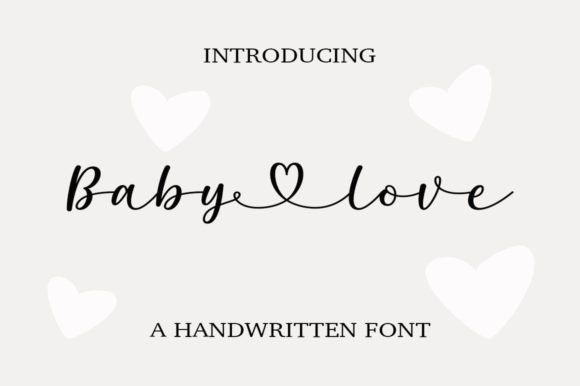
There’s something special about creating something with love and care, isn’t there? Maybe it’s the way the words flow, or the way the colors come together – whatever it is, it’s a feeling we all strive for when we’re designing something special. For me, that feeling usually starts with the right font.
Enter the Baby Love Font, a romantic and sweet calligraphy typeface that’s designed to add a touch of luxury to any design project. With its characters dancing along the baseline, this font is the perfect choice for anyone looking to add a little whimsy to their work. And with its PUA encoding, you can easily access all of the amazing glyphs and ligatures – making it a valuable addition to any designer’s toolkit.
Baby Love Font Key Features
- Font Family: Baby Love Font is a unique, handwritten font designed to evoke a sense of baby love and care.
- Unique Characteristics: The font features a playful, cursive script with subtle irregularities, giving it a hand-drawn feel that adds a touch of warmth and personality to designs.
Designer Review: Baby Love Font
When I first saw the Baby Love Font, I thought it was a cute and playful addition to any design project. The font’s rounded edges and soft lines ✨ evoke a sense of innocence and childlike wonder, making it perfect for nursery themes, children’s books, or even baby product branding.
- The font is highly customizable, allowing designers to adjust the weight, spacing, and even the subtle texture of the letters ✨.
- The font supports a wide range of languages, making it a versatile choice for global branding projects ✨.
However, there are some limitations to consider ⚠️:
- The font may not be suitable for serious or formal designs, as its playful nature can come across as immature or unprofessional ⚠️.
- The font’s rounded edges can sometimes make it difficult to read at small sizes or in low-resolution contexts ⚠️.
Overall, I think the Baby Love Font is a great addition to any designer’s toolkit, but it’s essential to use it judiciously. When paired with the right design elements and used in the right context, this font can add a touch of whimsy and personality to your projects. Just be mindful of its limitations, and you’ll be golden!
The Baby Love Font is perfect for:
- Baby shower invitations and decorations
- Children’s party materials and graphics
- Wedding invitations and decorations with a playful twist
Remember to use the Baby Love Font in moderation to avoid overwhelming your design.
Alternatives to “Baby Love Font” for Designers
Great Vibes Font is a beautiful, handwritten font perfect for creating a whimsical and playful atmosphere. It is ideal for use in children’s book covers, invitations, and any project that requires a touch of elegance and sophistication.
Compared to Baby Love Font, Great Vibes Font has a more refined and delicate look, making it suitable for a wider range of applications.
Alex Brush Font is a elegant, handwritten font that exudes a sense of sophistication and luxury. It is perfect for use in high-end branding, wedding invitations, and any project that requires a touch of glamour.
Compared to Baby Love Font, Alex Brush Font has a more formal and polished look, making it suitable for use in professional and high-end applications.